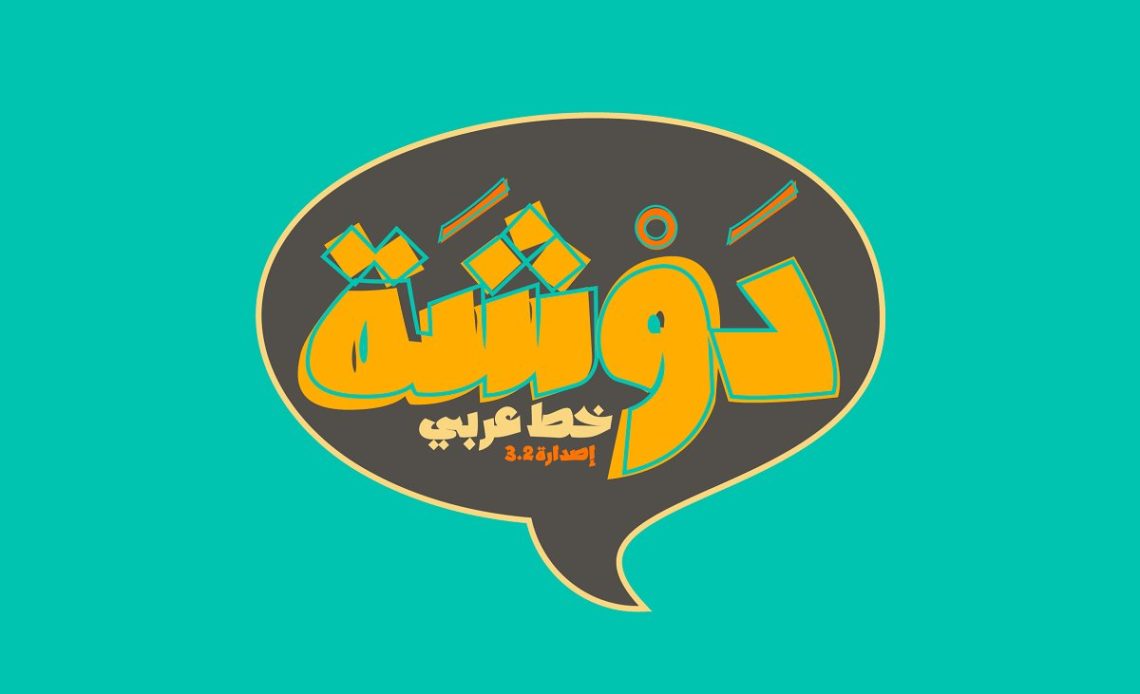
Introducing Dawshah - Arabic Font, a captivating and expressive typeface that will elevate your creative projects to new heights. Created by the talented Mostafa Abasiry, this font is more than just a collection of letters; it is a powerful tool that will make your designs stand out from the crowd.
The name 'Dawshah' holds multiple meanings in Arabic, ranging from making noise to being unseeing. This reflects the font's unique ability to create a visual impact and capture attention like no other. With its bold and spontaneous style, Dawshah is perfect for casual titling that demands to be heard.
Whether you're designing a captivating logotype, eye-catching T-shirt typography, or stunning book covers, Dawshah is the perfect choice. Its heavy weight and distinctive design allow it to communicate your message loudly and clearly, ensuring that your audience will not miss a single word.
But Dawshah is not just about making noise; it is also about making a statement. This font exudes confidence and creativity, allowing you to express your unique personality through your designs. It adds a touch of excitement and energy to any project, leaving a lasting impression on the viewer.
With Dawshah, the possibilities are endless. Its versatility makes it suitable for a wide range of creative projects, from event invitations to social media graphics. Let your imagination run wild and watch as Dawshah brings your ideas to life in ways you never thought possible.